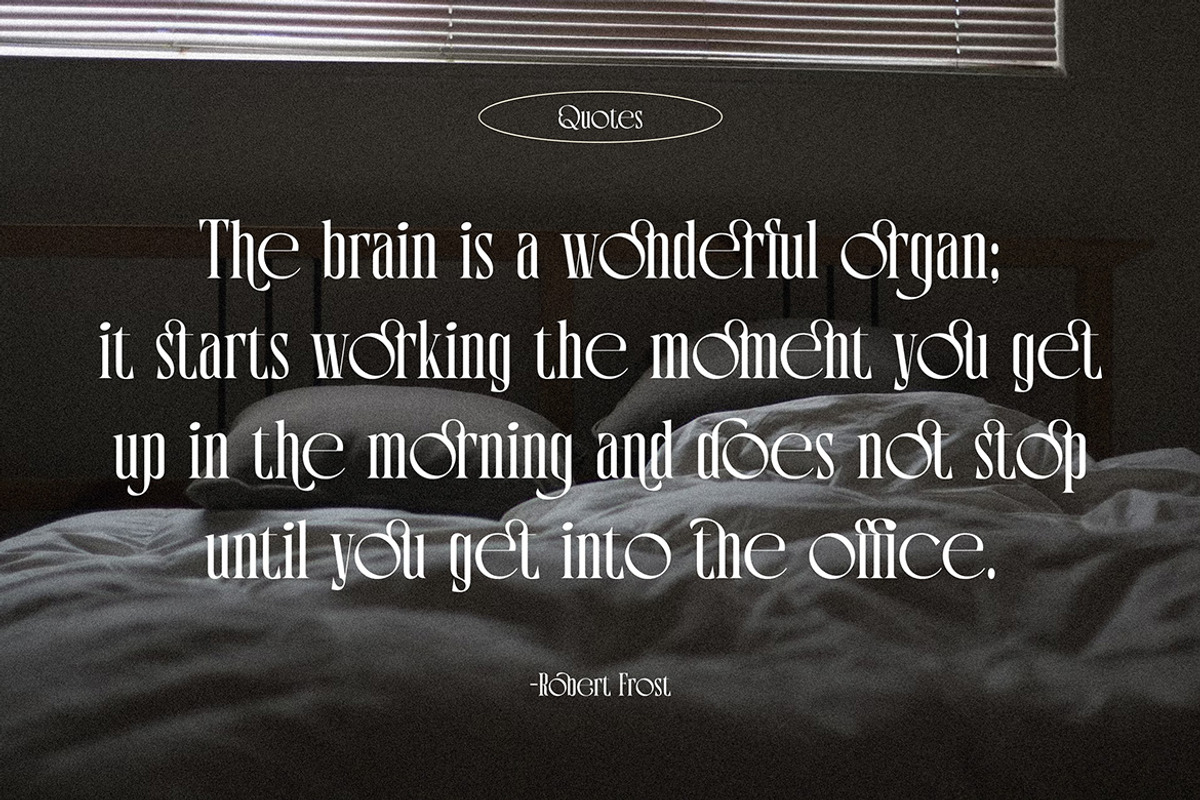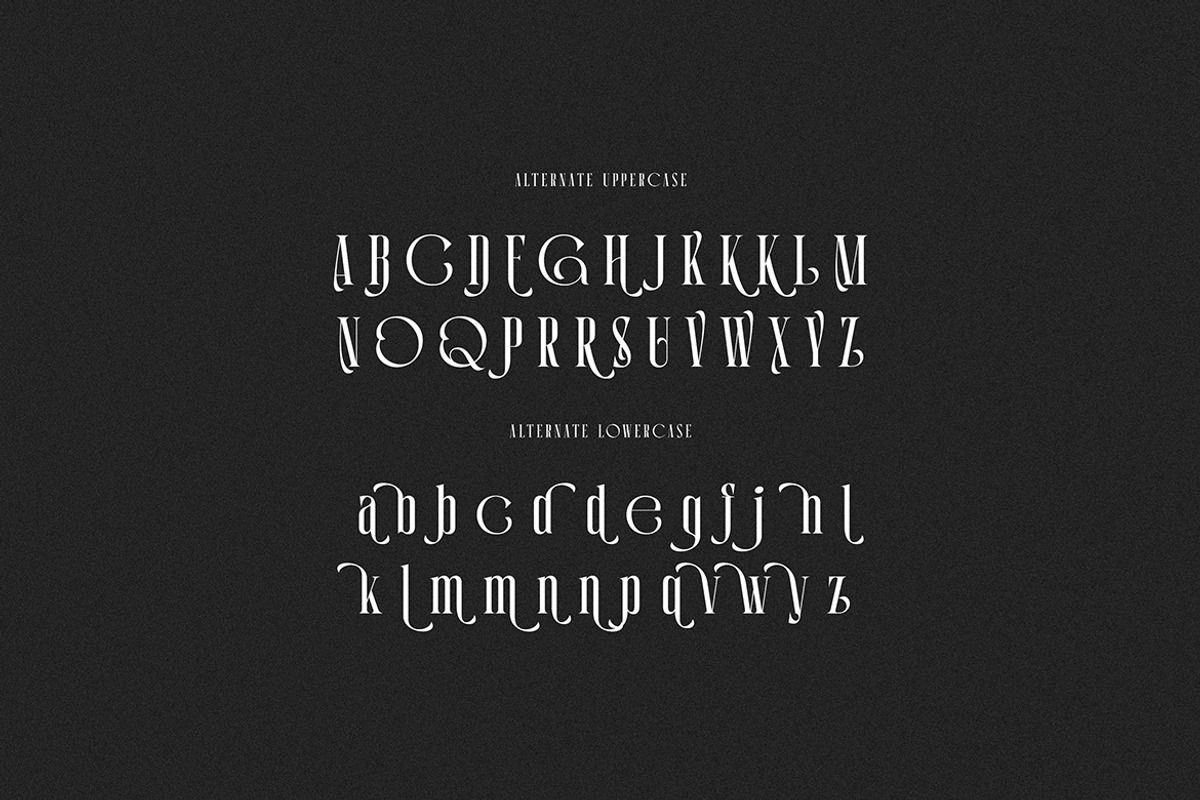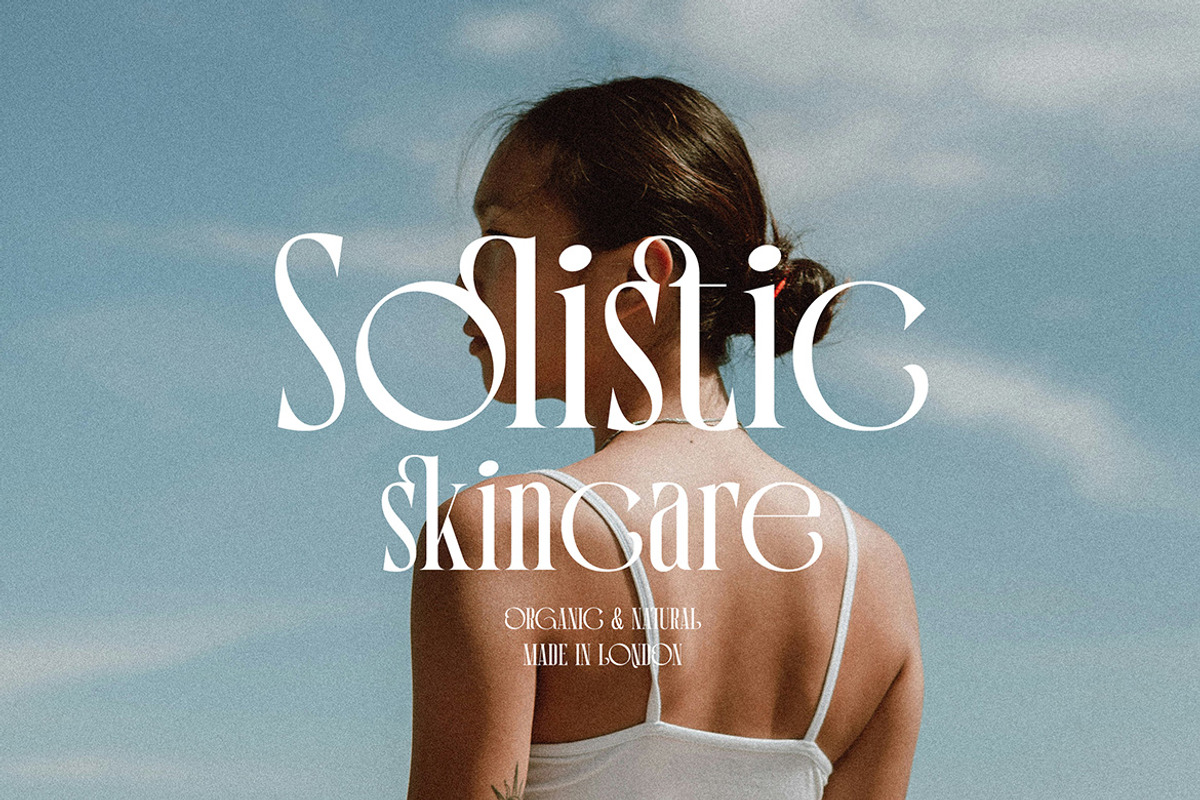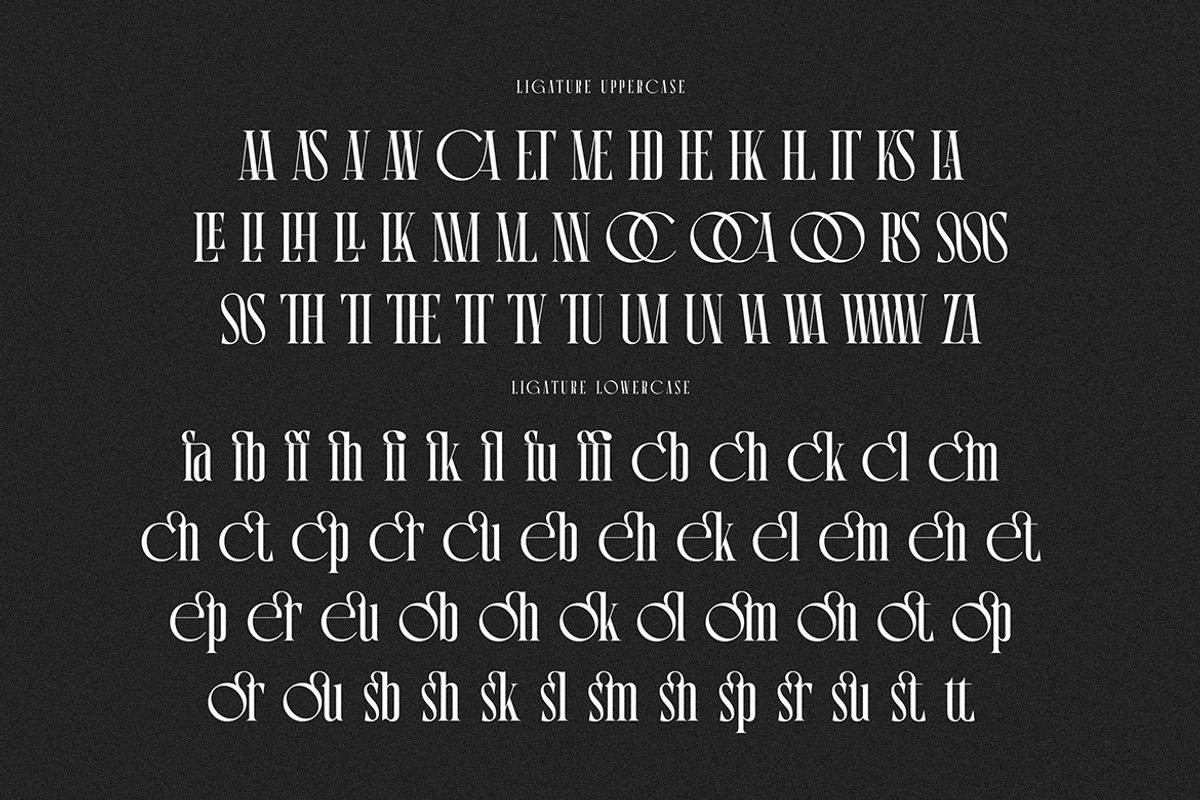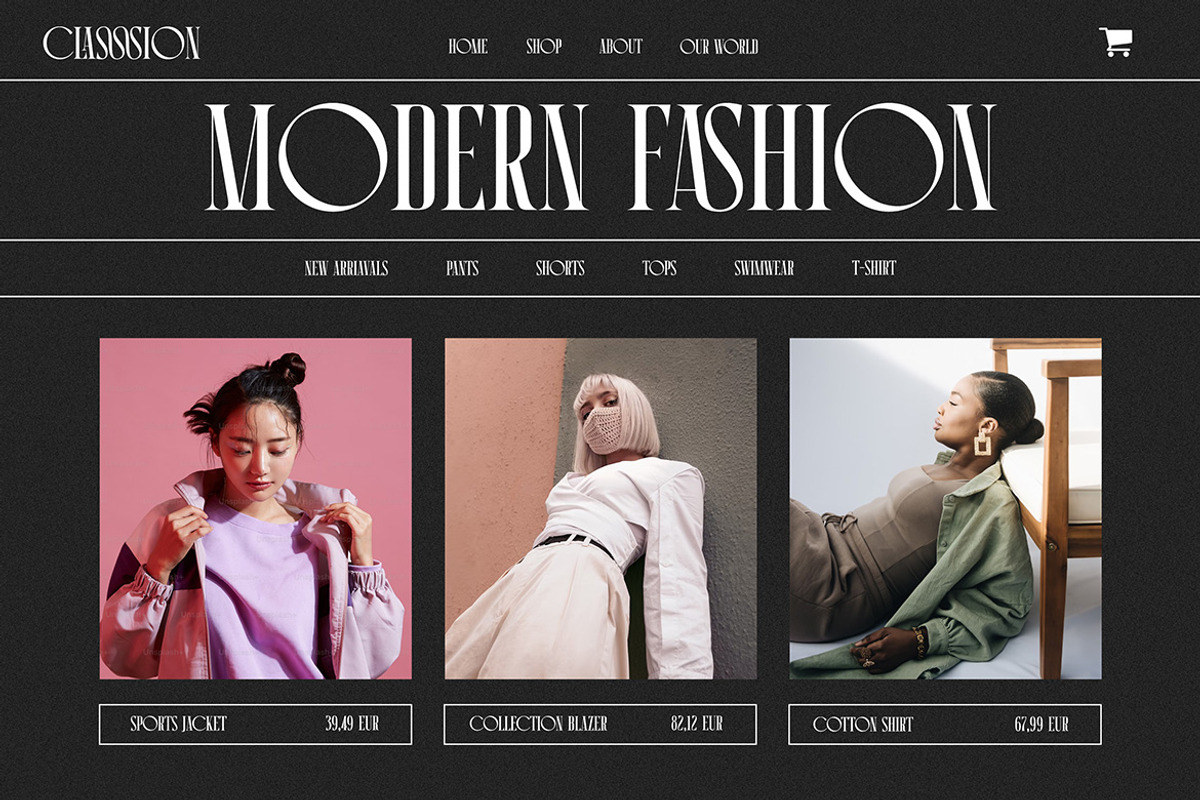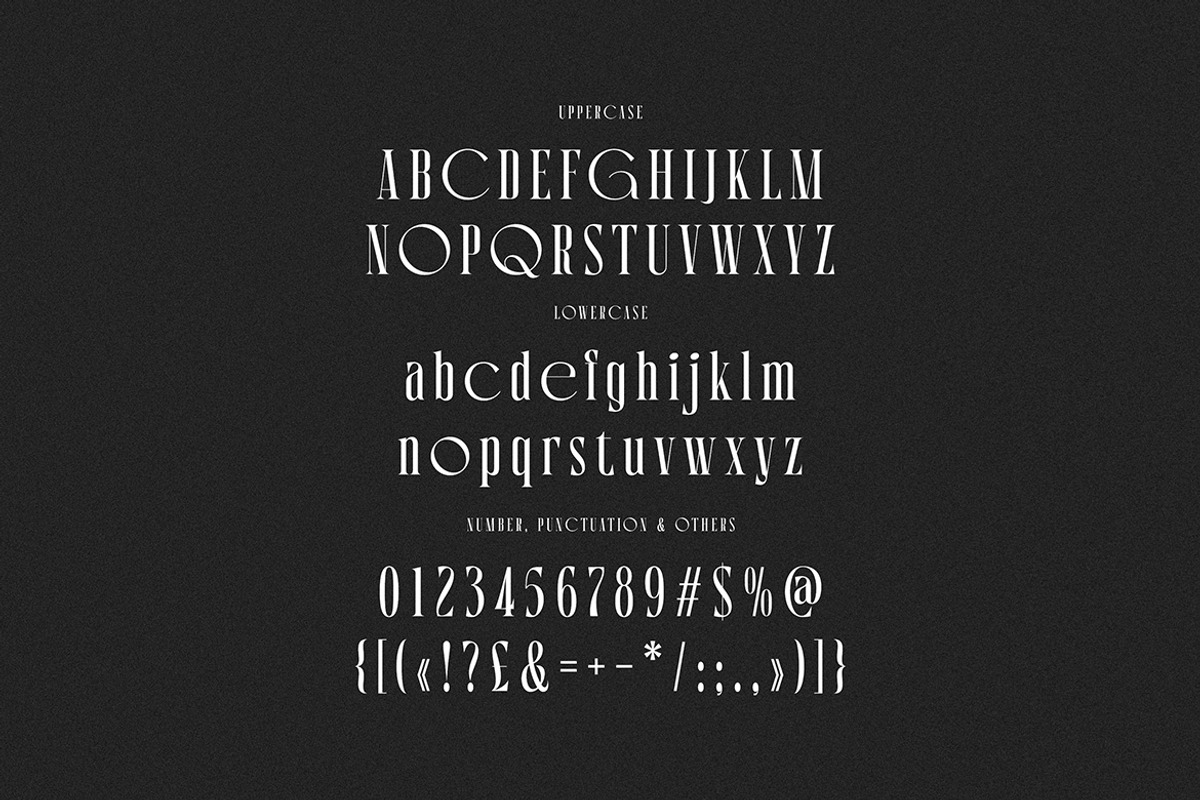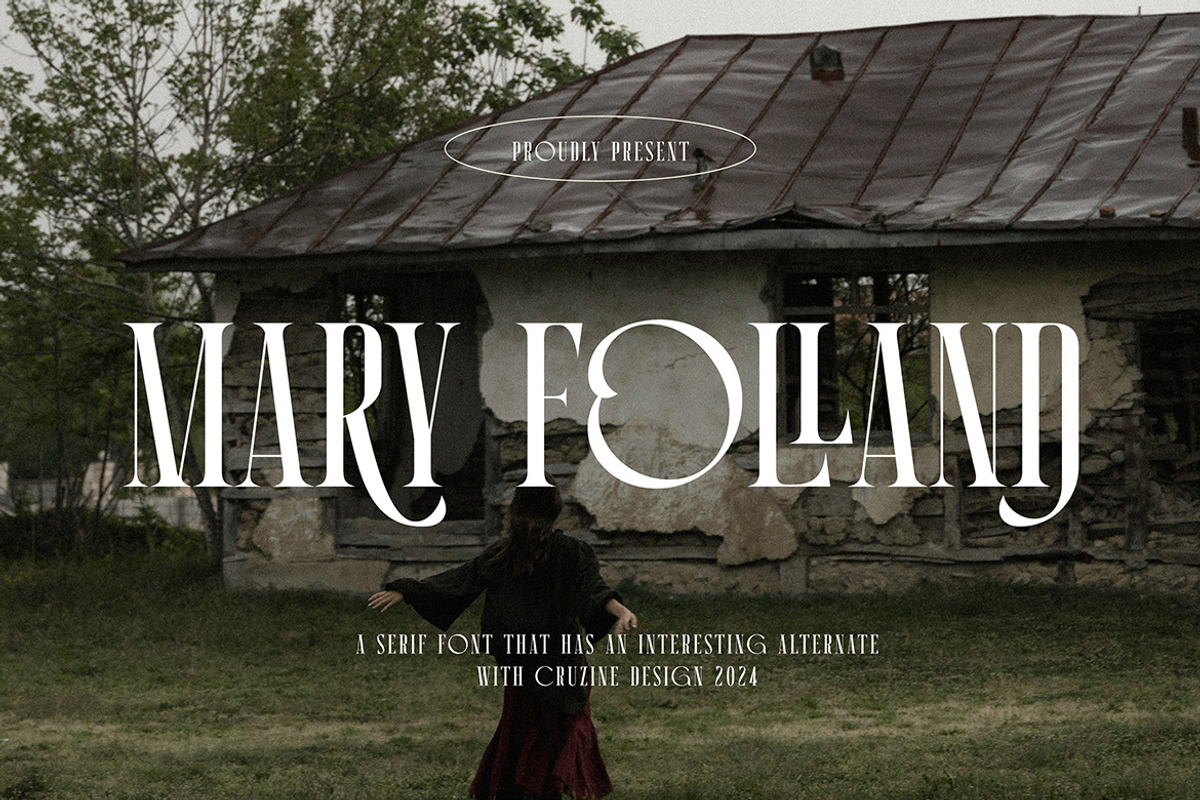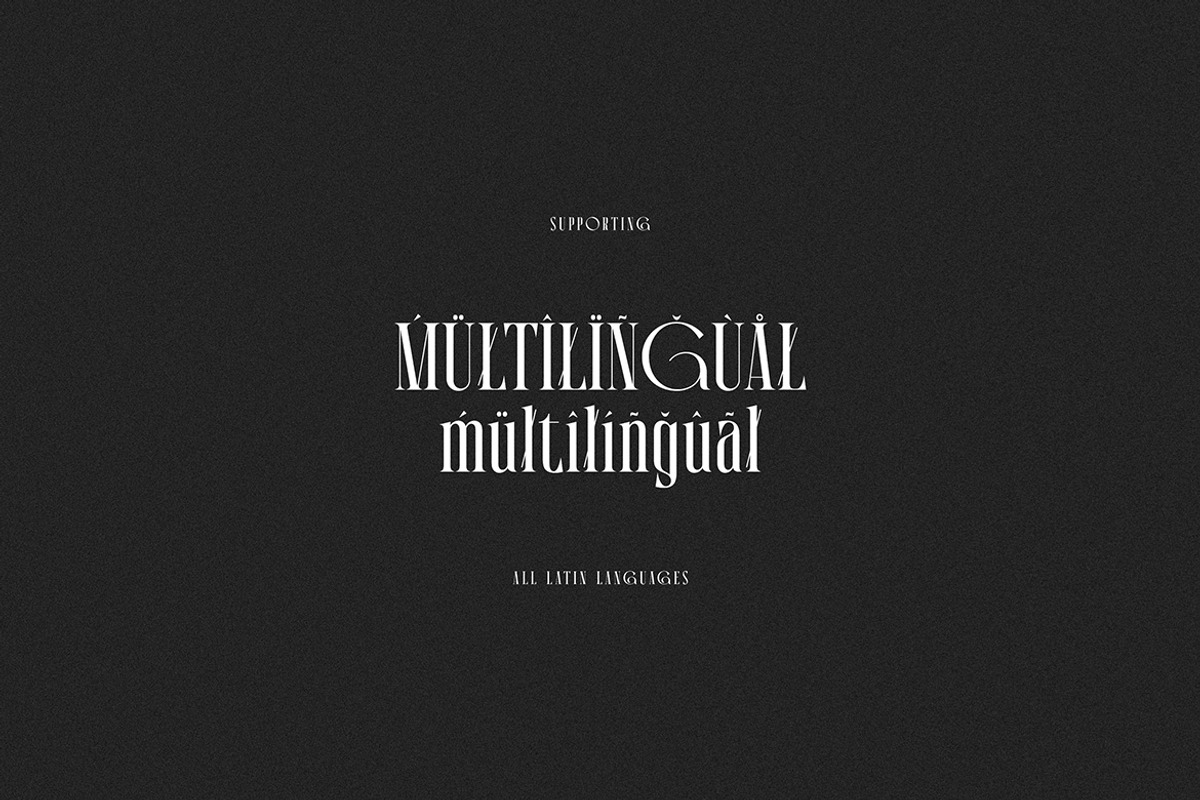
Mary Folland Condensed Serif
Trendy, elegant, luxury, creative, condnesed & modern style serif font for your new fancy projects. Stylish, romantic and classic style on Mary Folland font will be great for any modern or classy branding project. Lot of alternates and ligatures will help you to create unique and original logo design or website header! Enjoy :)
- Alternate characters
- Lot of ligatures
- Great for modern branding projects!